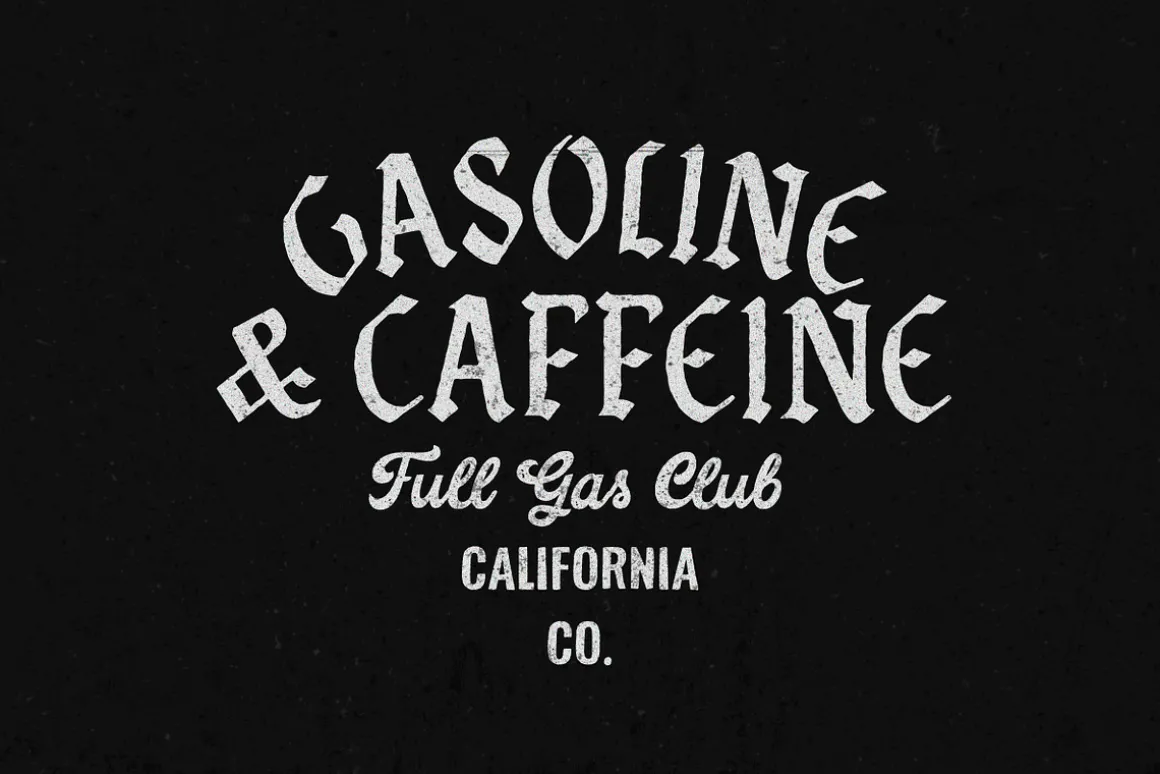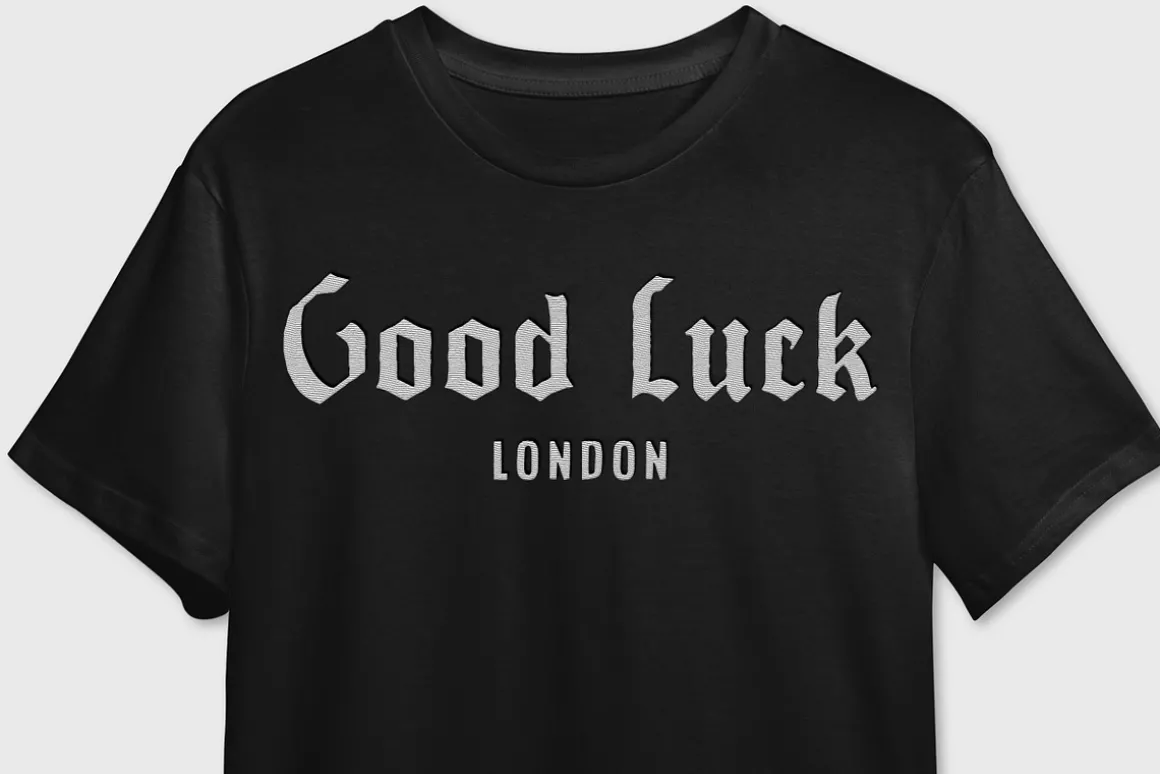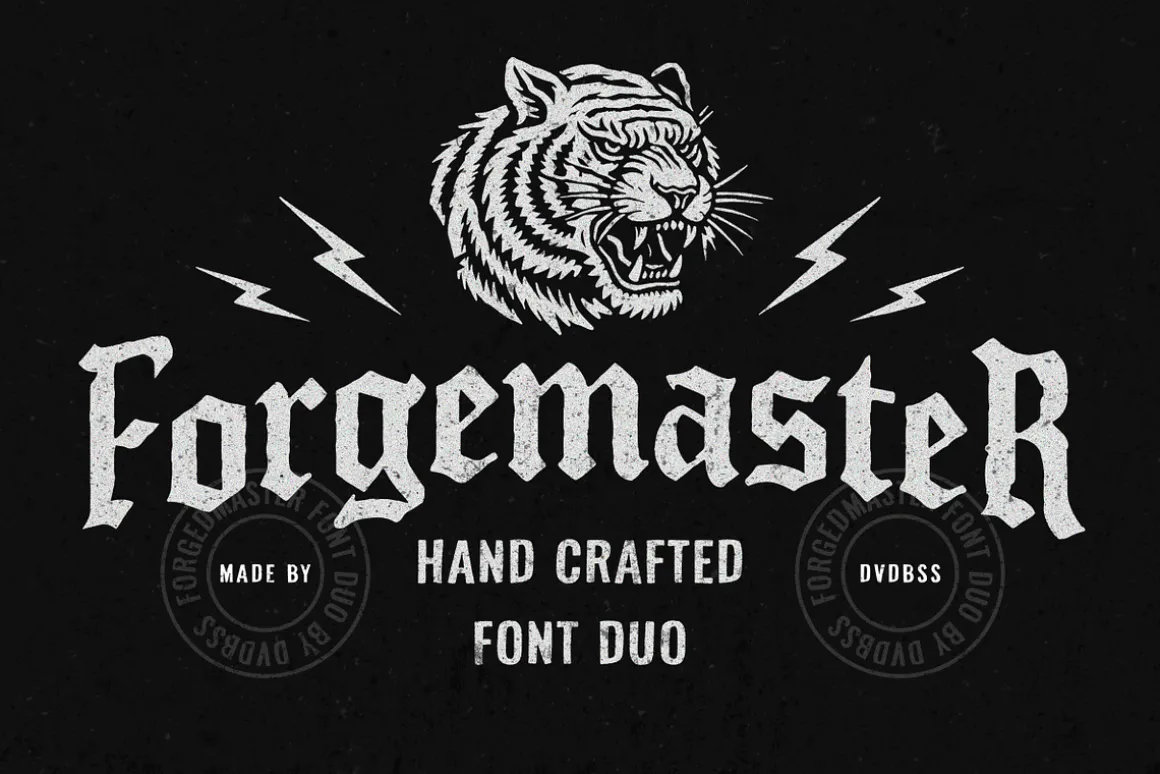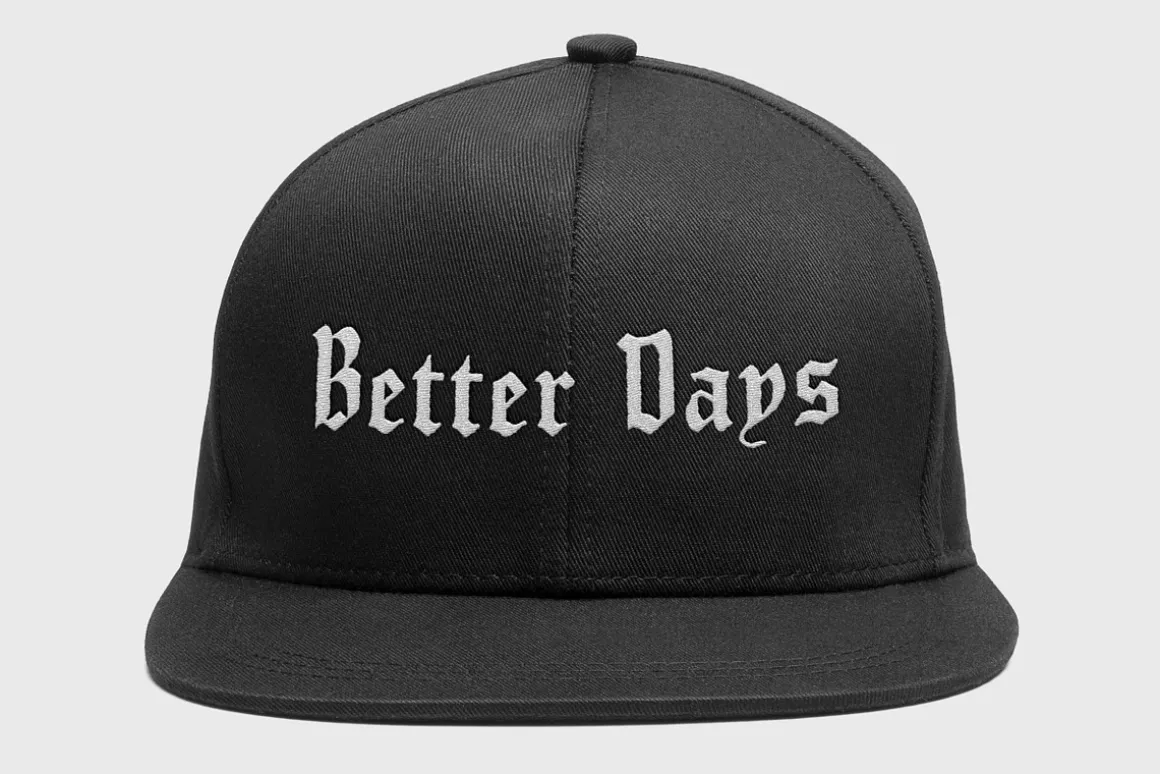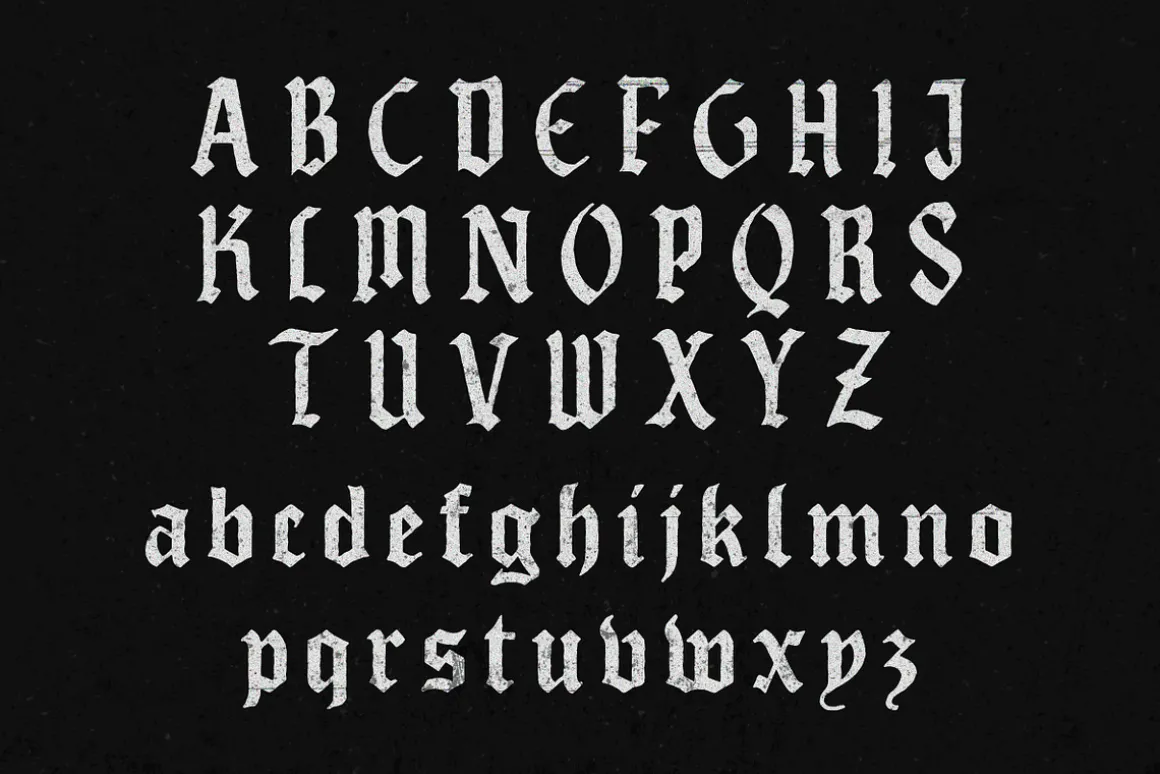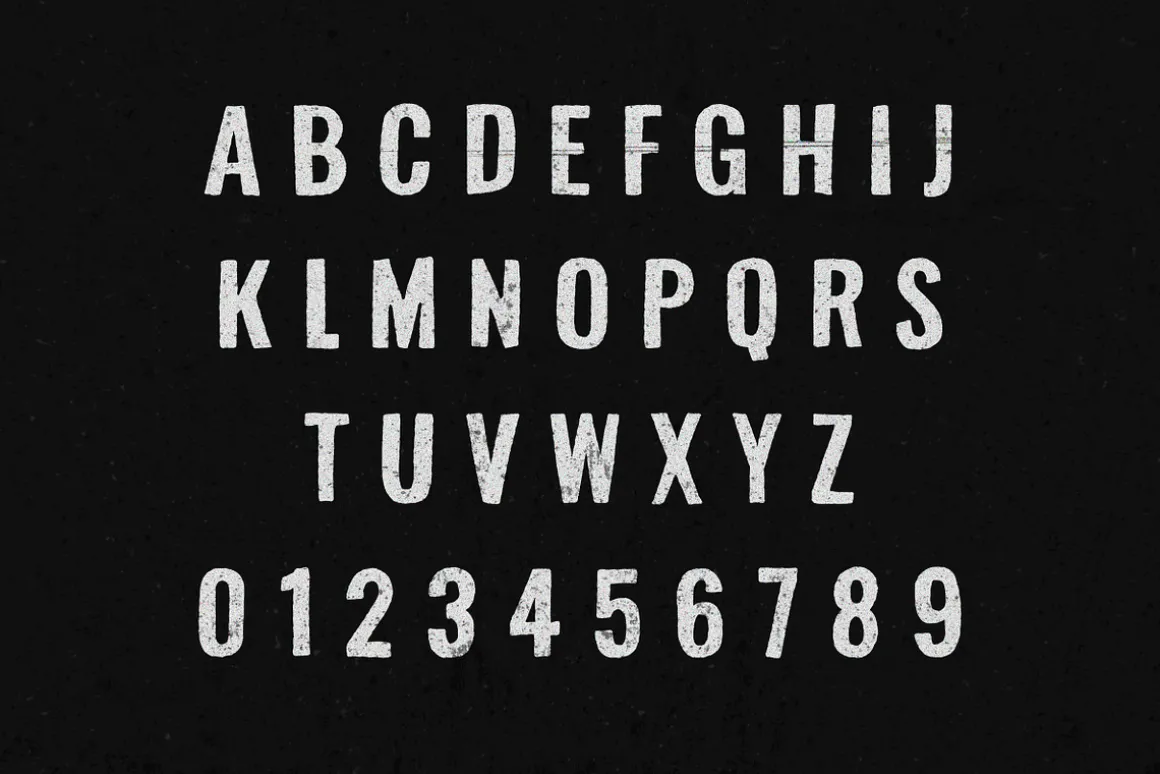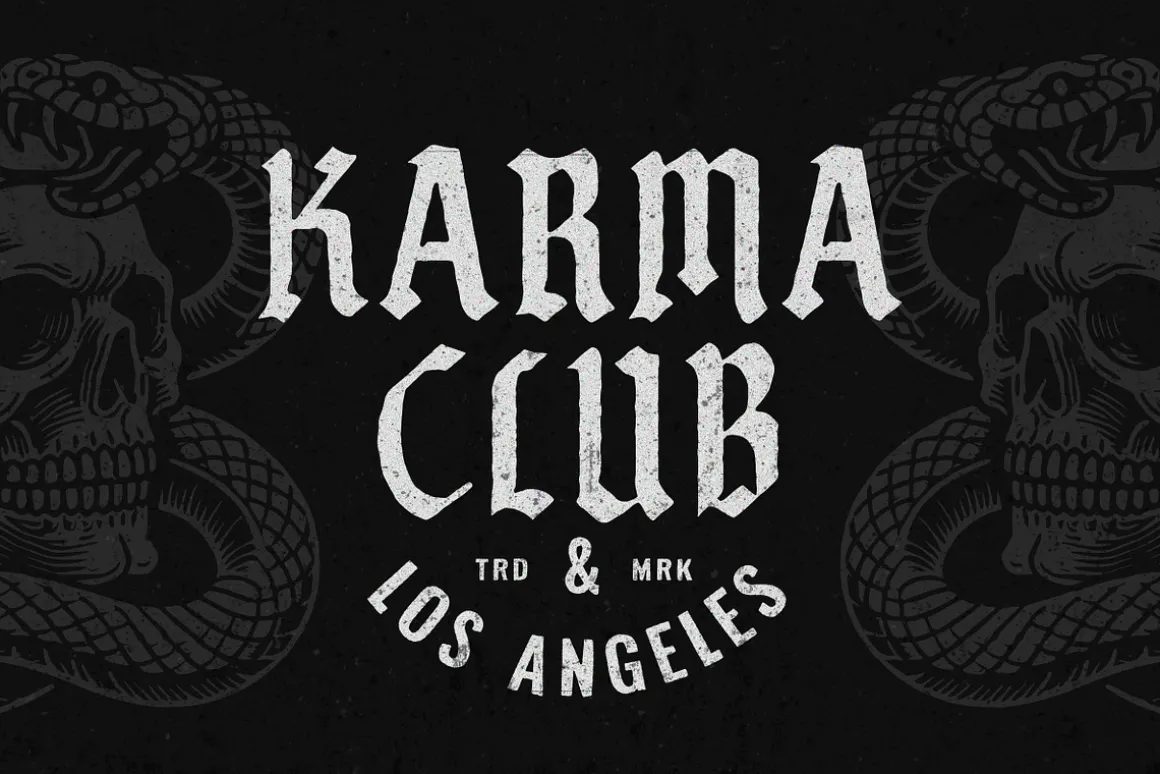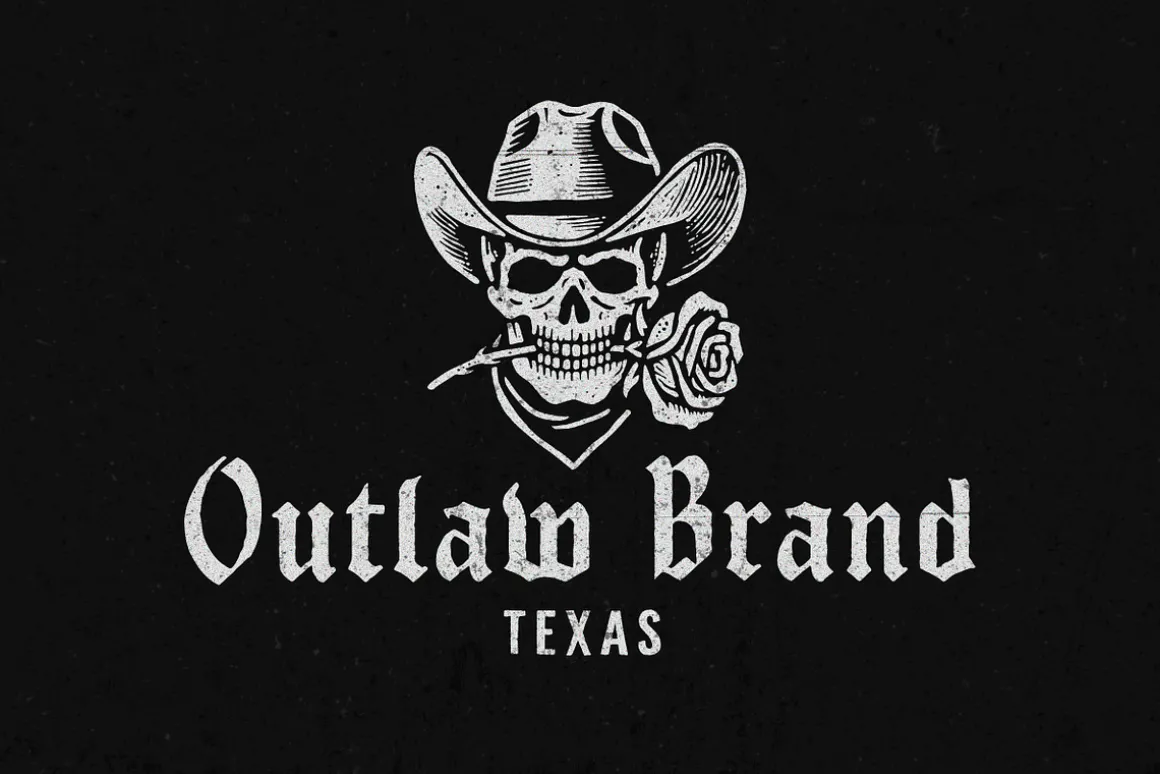
Introducing the ⚡FORGEMASTER Font Duo⚡ – a striking fusion of a bold, handcrafted Blackletter and a complementary condensed Sans, both brimming with vintage old-school charm. This duo is designed to capture the rebellious spirit of tattoo parlors, classic biker culture, and retro aesthetics.
Ideal for branding projects, edgy logos, apparel designs, signage, and anything that needs a touch of rugged and artistic flair ⚡